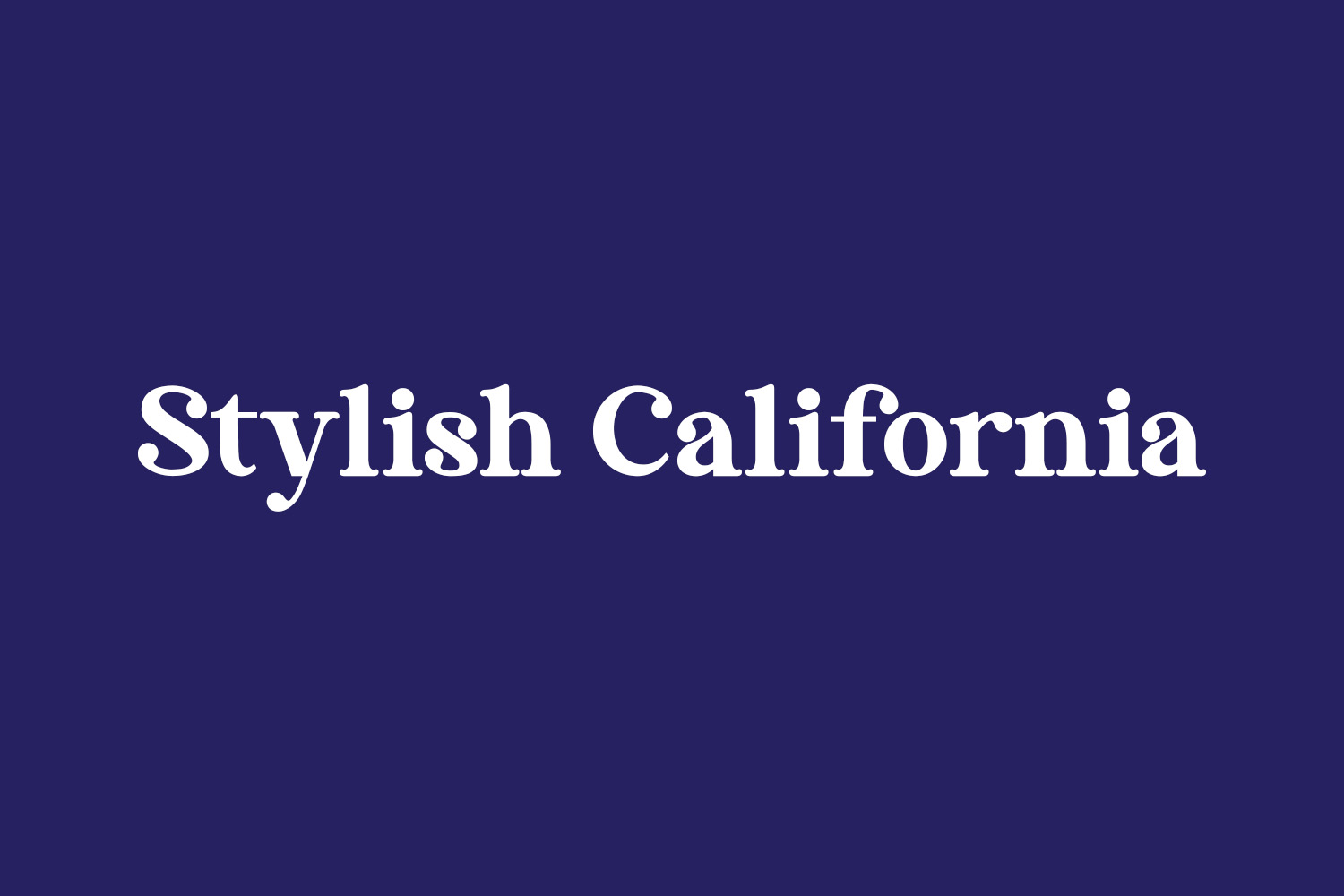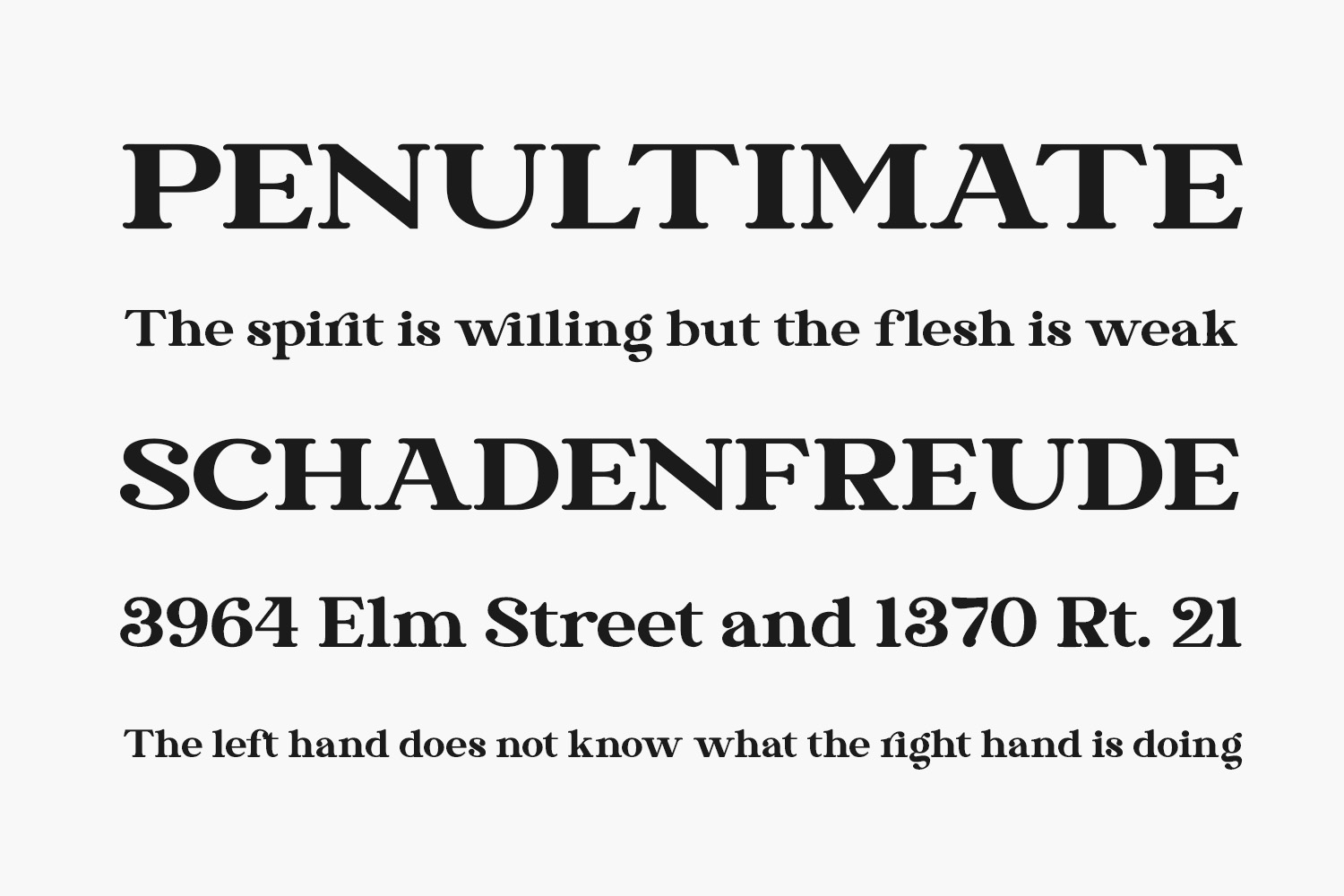
Stylish California Free Font Family is an excellent, elegant, fashionable serif font. Whether you’re using it for crafting, digital designing, presentations, or greeting card making, it’s perfect. Stylish California Free Font Family was designed by Letterena Studios and is free for personal use only. Please purchase the full version for commercial use.
Stylish California Regular The quick brown fox jumps over the lazy dog
Stylish California Italic The quick brown fox jumps over the lazy dog